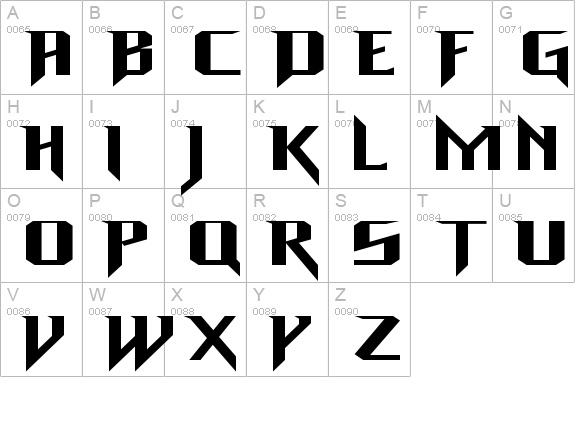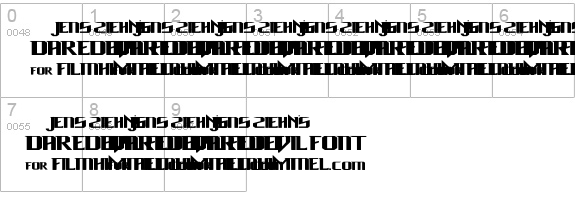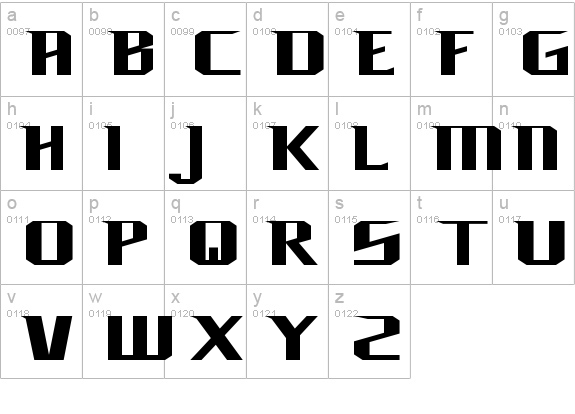
Daredevil Font Details
Daredevil font is a bold and daring typeface that embodies strength and resilience. With its sharp edges and strong presence, this font commands attention and makes a statement. Whether you are looking to create eye-catching headlines or striking logos, Daredevil font is sure to leave a lasting impression. The best part is that Daredevil font is available for free download at FontsMarket.com. Simply visit the website, download the font, and unleash your creativity with this powerful and impactful typeface. Don't miss out on this opportunity to add a touch of boldness to your designs with Daredevil font.